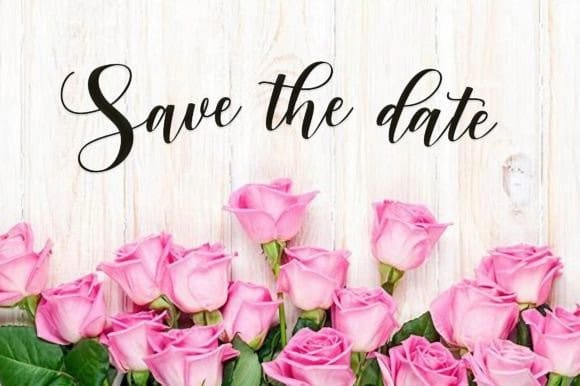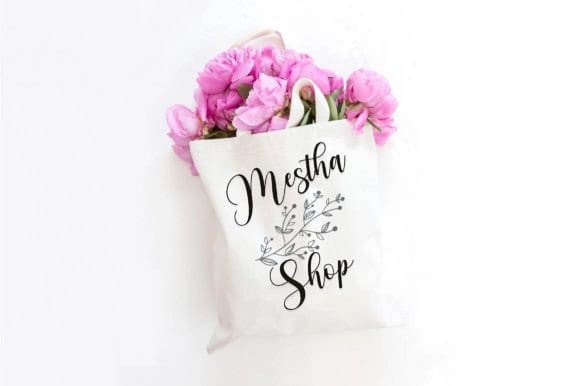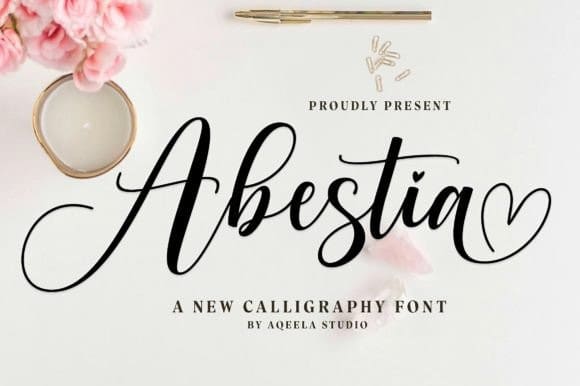
Abestia Font
Abestia Font is a romantic calligraphy font that gracefully intertwines elegant swirls and flowing lines, capturing the essence of timeless romance. Its delicate curves and flourishes evoke a sense of poetic charm, perfect for love letters, wedding invitations, and any occasion where heartfelt emotion is to be conveyed. Each character dances with an expressive flourish, making every word a work of art that speaks directly to the heart.